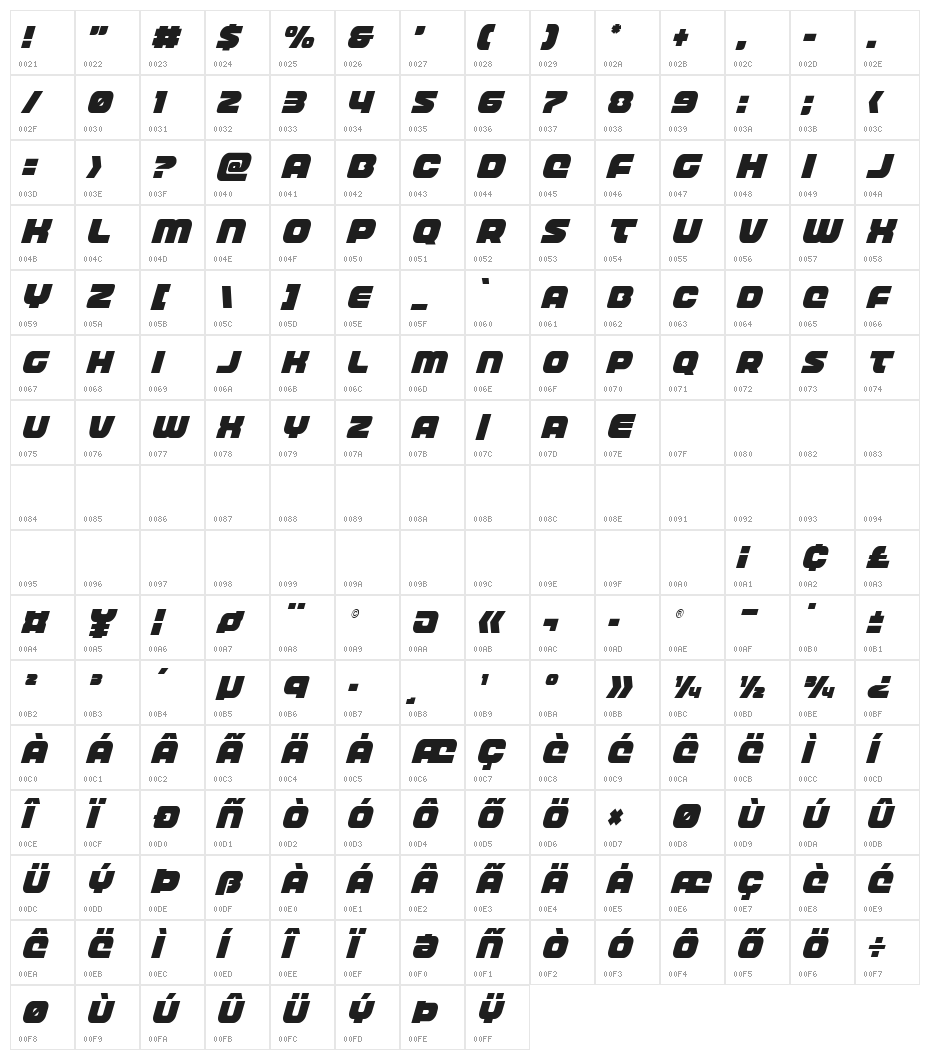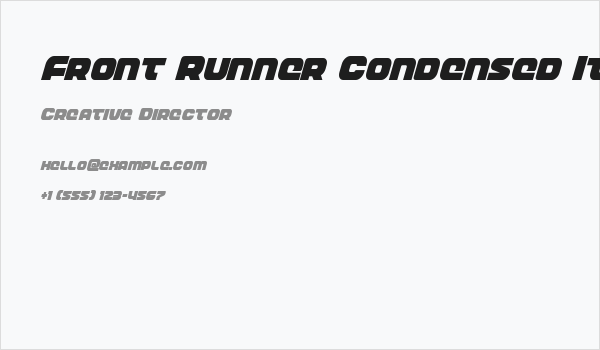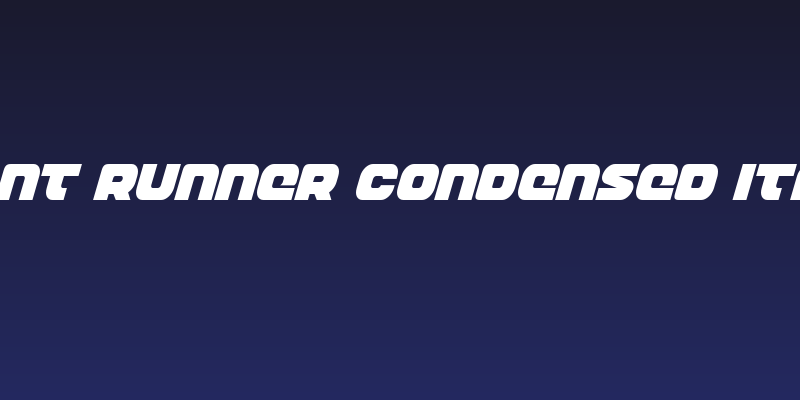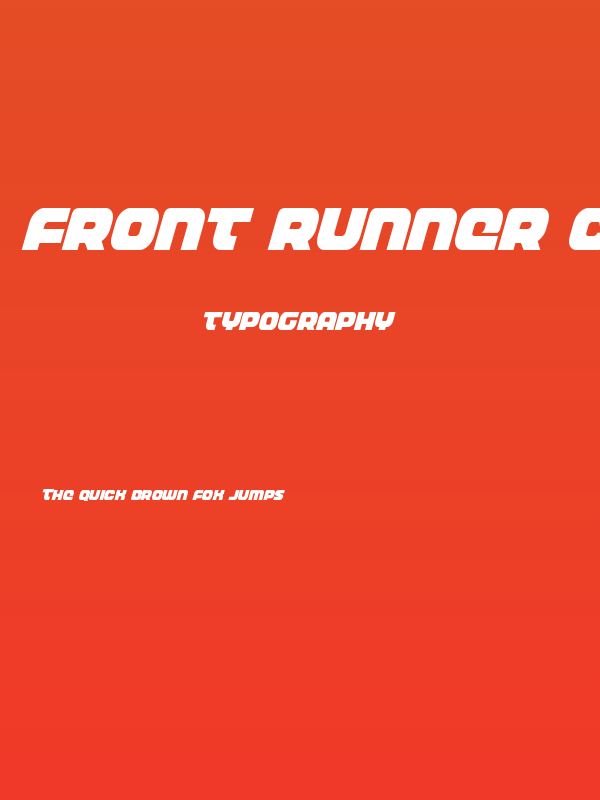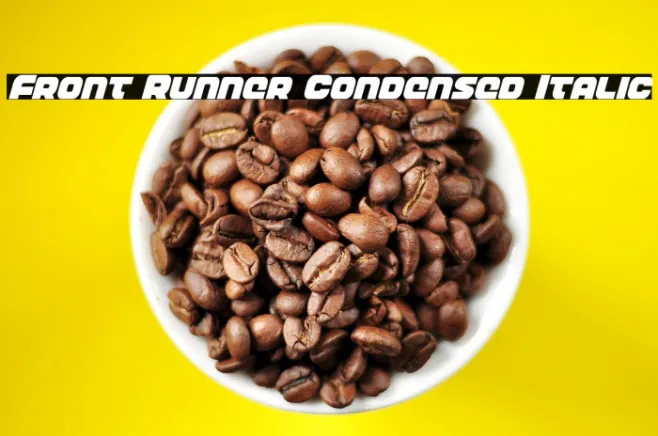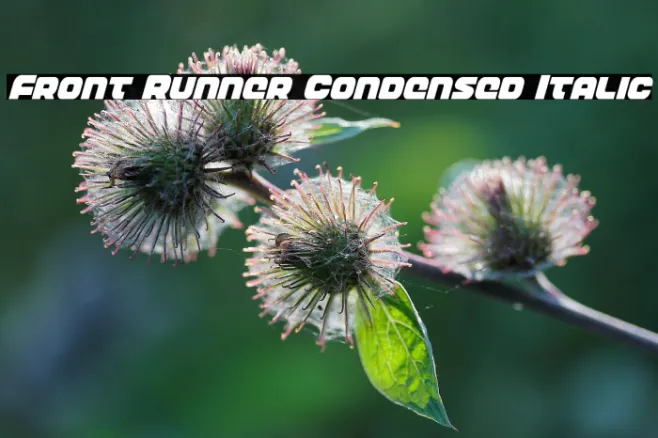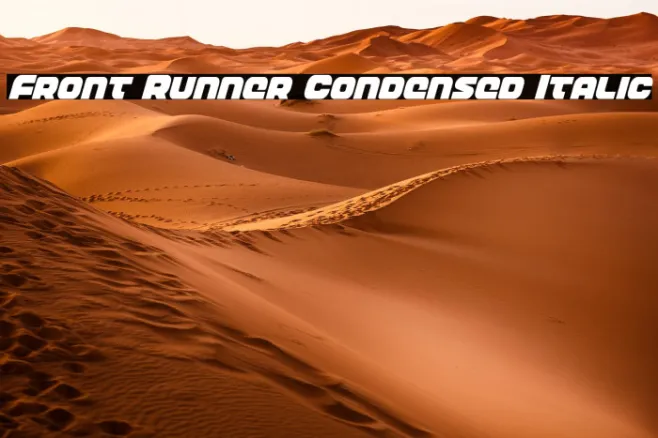
Front Runner Condensed Italic Font
Front Runner Condensed Italic Description
This font features a bold and dynamic style with a condensed and italicized form. The characters are robust and impactful, with a strong presence that commands attention. The angular cuts and smooth curves create a sense of movement and speed, making it ideal for projects that require a modern and energetic look. The uppercase and lowercase letters maintain a consistent weight, ensuring readability while adding a unique flair. The numbers and special characters are designed with the same boldness, providing a cohesive appearance across all elements.
| Proposed Projects | Ideal for sports branding, automotive advertising, dynamic posters, and modern logo design. |